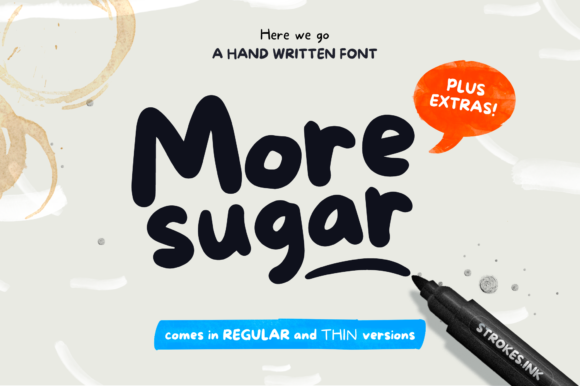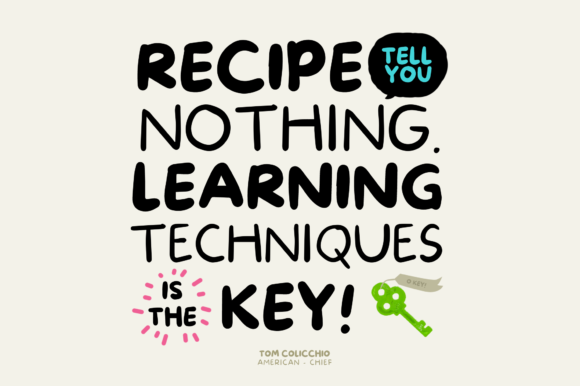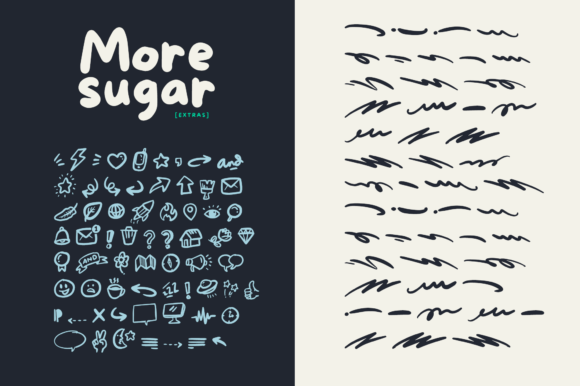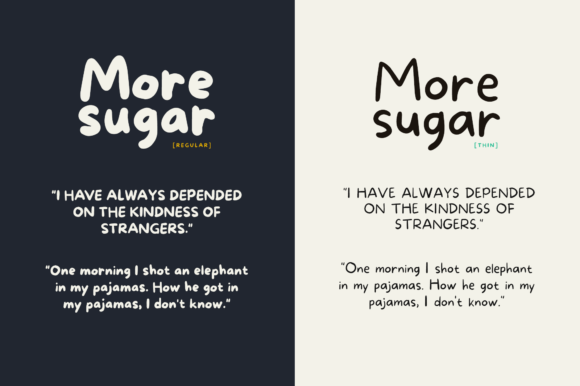
More Sugar Font: A Playful Handwritten Font for Cute Designs & DIY Projects
About the More Sugar Font
Unleash your creativity with More Sugar Font, a versatile font perfect for a wide range of applications. More Sugar is a fun and bouncy handwritten font, capable of making your designs have a simple but nuanced design. The natural strokes create a casual feel that works well across a wide range of projects, most particularly with lighthearted packaging designs.
More Sugar excels in headline use, particularly for projects emphasizing youthful energy and playfulness. It’s ideal for branding initiatives targeting a younger demographic, food and beverage packaging, children’s products, and posters promoting events with a lighthearted tone. Avoid using it for large bodies of text or UI elements; its informal nature and varying stroke weights hinder readability in extended passages.
For optimal pairings, consider a clean sans-serif like Open Sans or Lato for body text, providing a strong contrast in formality. Alternatively, a geometric sans-serif such as Montserrat could offer a modern complement. For a more sophisticated pairing, a delicate serif font, like Playfair Display, can add a touch of elegance, balancing More Sugar’s casual energy.
More Sugar’s core personality is undeniably cheerful and approachable. Its bouncy, slightly irregular forms communicate a sense of friendly spontaneity, making it a strong choice for brands that want to project warmth and approachability.